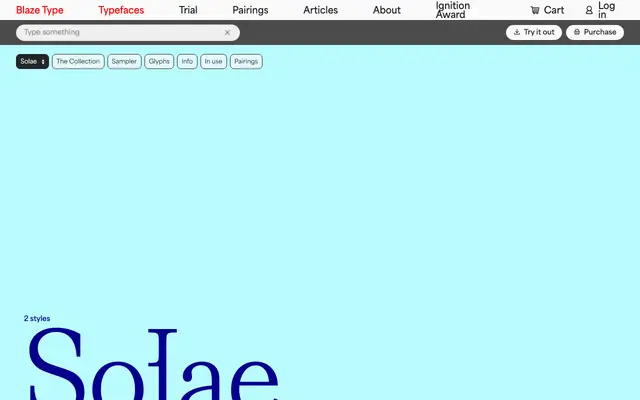
Solae
Blaze Type · Gwennina Moigne · 2025
A Romain du Roi revival by Gwennina Moigne that replaces the conventional italic with a 9° rotated "rotalic" cut, accompanied by over 2,000 glyphs including astrological symbols and extensive ligature sets.
Designed by Gwennina Moigne and released in 2025, Solae takes the Romain du Roi as its historical anchor whilst introducing a rotalic style, a 9° rotation meant to echo orbital movement, in place of a traditional sloped roman. The family carries over 2,082 glyphs covering 100+ languages, moon phase symbols, astrological characters and a large array of uppercase and lowercase ligatures suited to editorial, poster and identity work. The celestial framing and the Sun King namecheck are conceptually coherent rather than decorative: the delicate stroke contrast and rigorous structure stay close to the Romain du Roi's origins.
A revival inspired by Romain du Roi, the late 17th-century transitional serif commissioned by Louis XIV, placing it firmly in the transitional category with its high contrast and vertical stress, though given a distinctive contemporary treatment with a rotalic variant instead of a conventional italic.